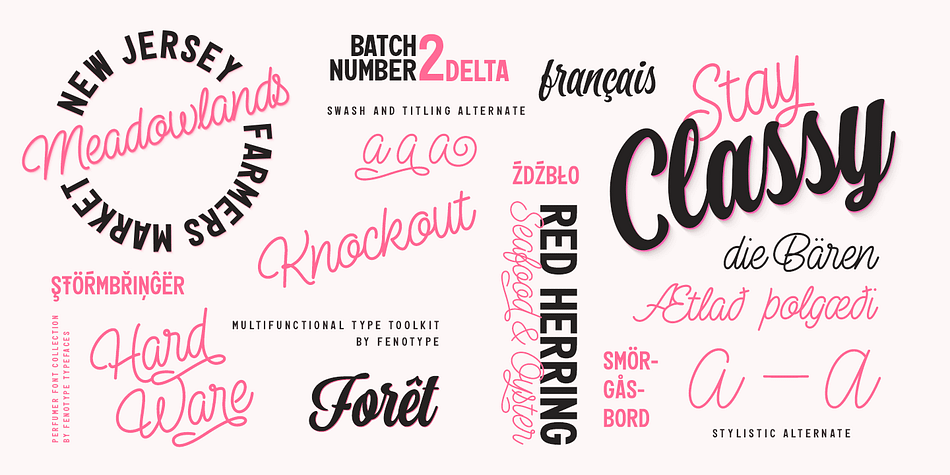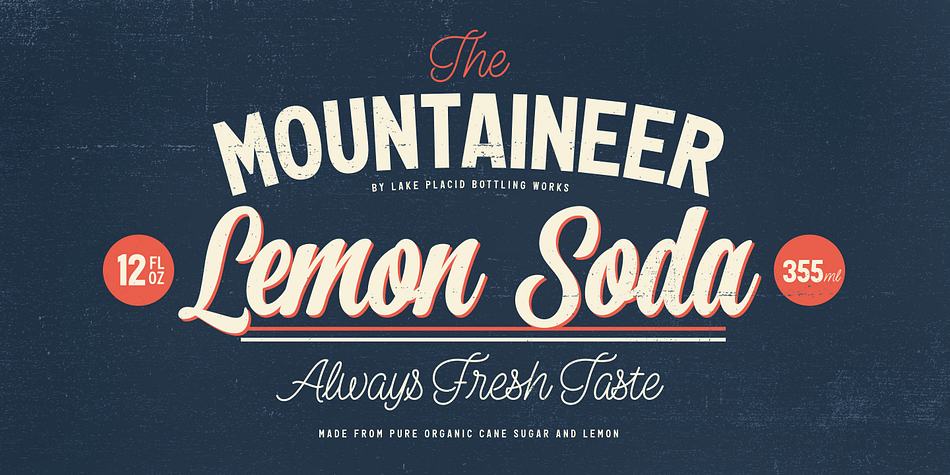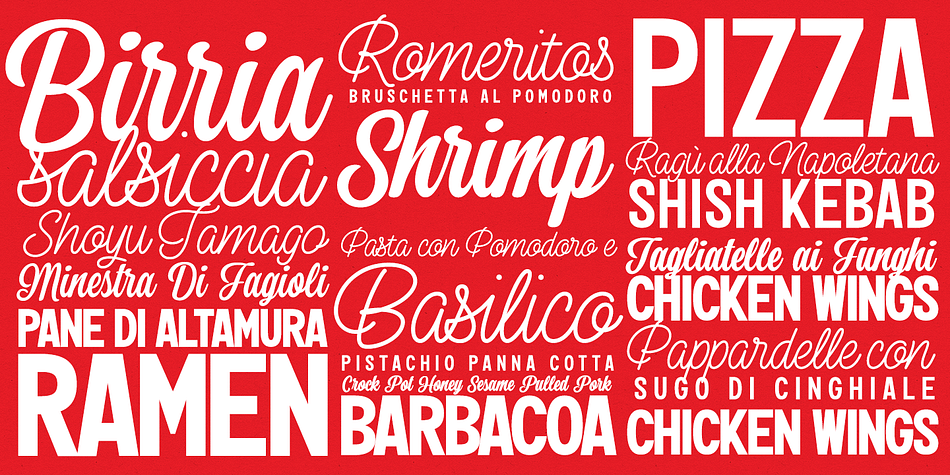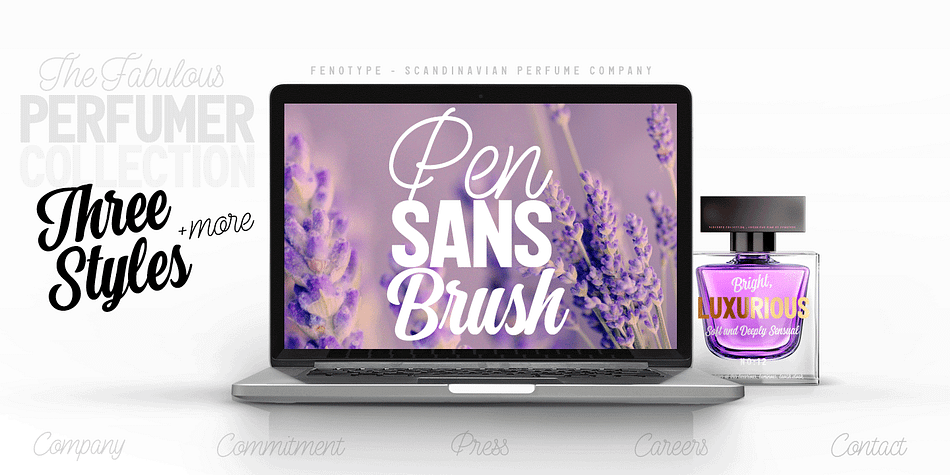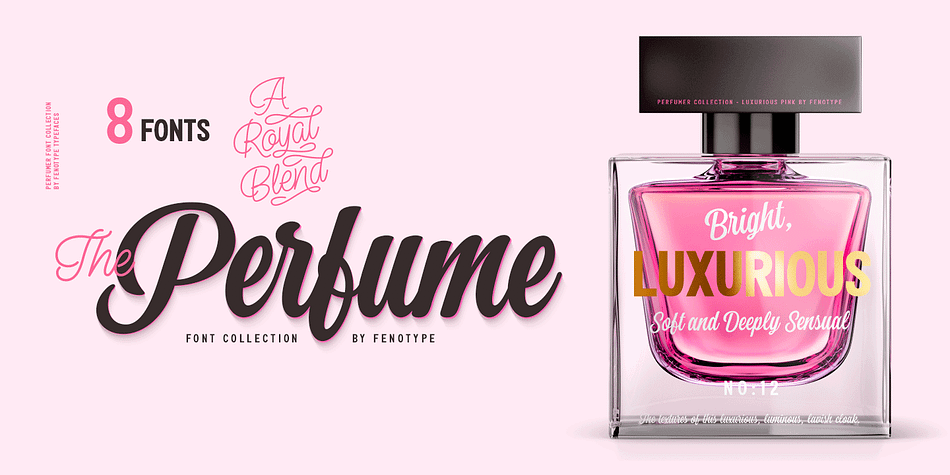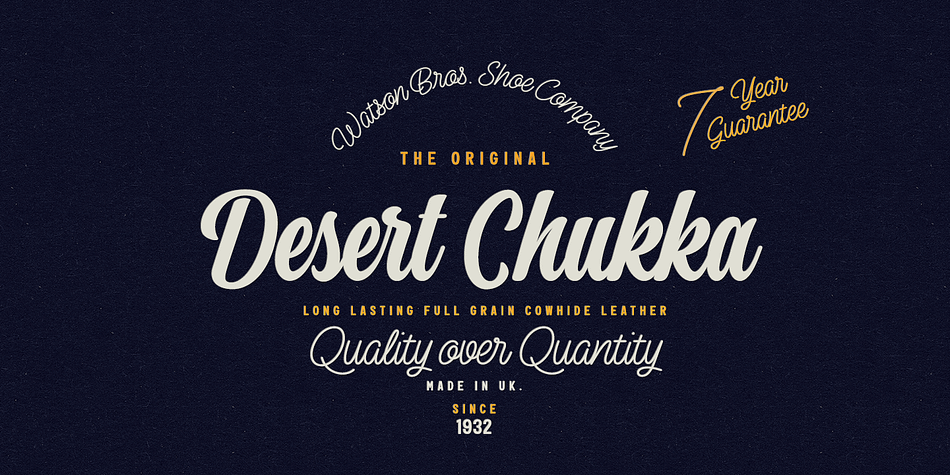
Designed by Emil Bertell, Perfume is a brush script, display sans and script font family. This typeface has eight styles and was published by Fenotype.
Perfume - a luxurious display pack.
Perfume is a display combo pack of three styles and eight fonts. Perfume fonts are soft and clean and they have a distinguishable character.
Perfume Pen is a monoline script with three weights and large x-height. Perfume Pen is equipped with automatic Contextual Alternates that keep the connections smooth. In addition Perfume Pen has Swash, Stylistic and Titling Alternates, boasting over 500 glyphs in total.
Perfume Brush is a bold brush script with two weights. Perfume Brush is also equipped with Contextual Alternates to keep connections smooth and Swash alternates for more imposing character forms.
Perfume Sans is a sturdy all caps Sans with three weights.
Styles | Brush Script, Display Sans, Script |
Designer | Emil Karl Bertell |